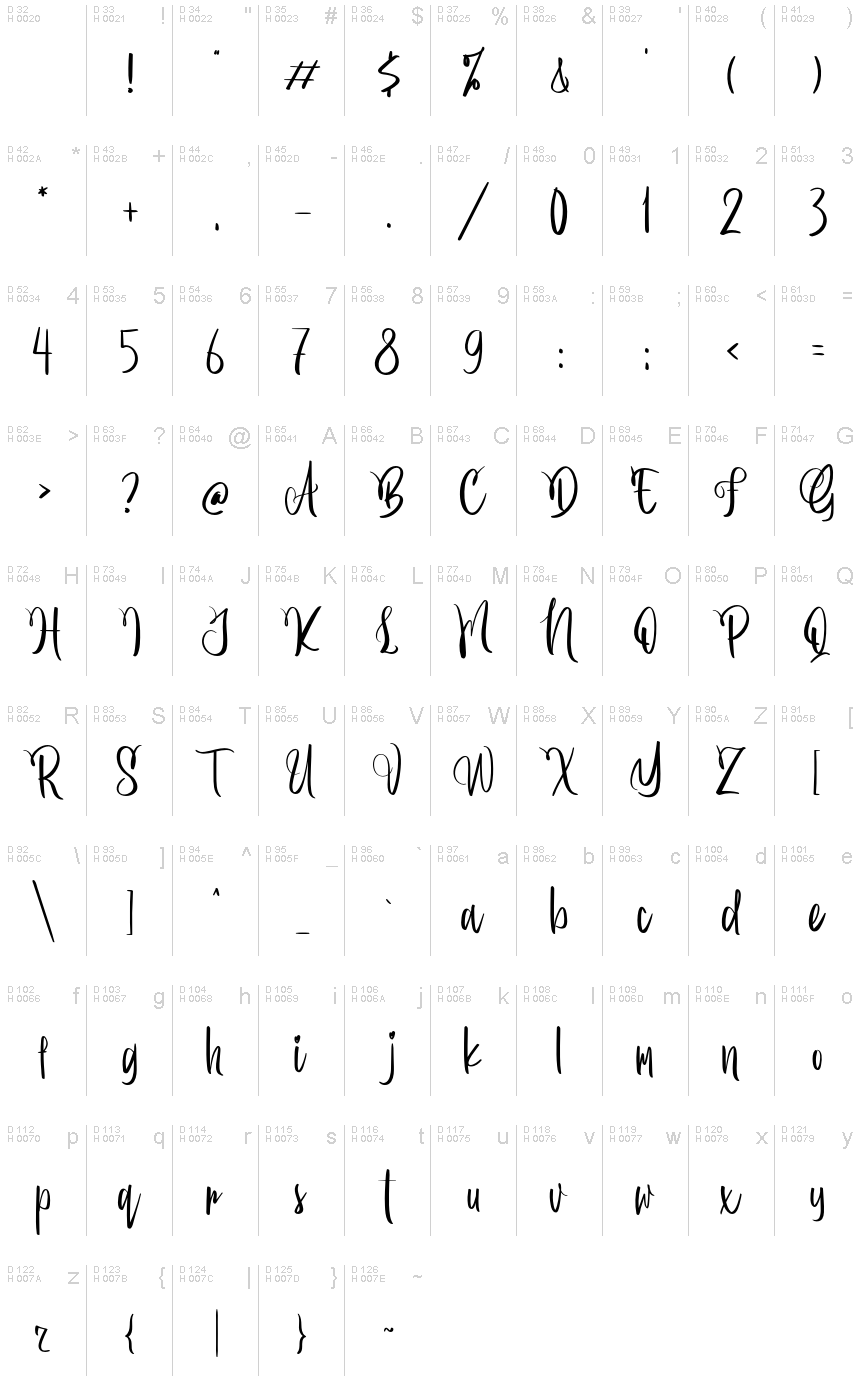
Breathaking Regular
Breathtaking, a captivating handwritten font designed by Vampstudio, exudes a captivating blend of elegance and effortless charm. Its flowing, organic lines and expressive strokes create a sense of movement and spontaneity, leaving a lasting impression on the viewer. The font's unique personality lends itself to a wide range of applications, from high-end branding and editorial design to personal stationery and wedding invitations.
This versatile font's adaptability makes it a versatile choice for designers seeking to infuse their projects with a touch of sophisticated, hand-crafted allure. Whether you're crafting a luxurious wedding invitation suite or designing a modern lifestyle brand, Breathtaking by Vampstudio can elevate your visuals and evoke a sense of timeless sophistication.